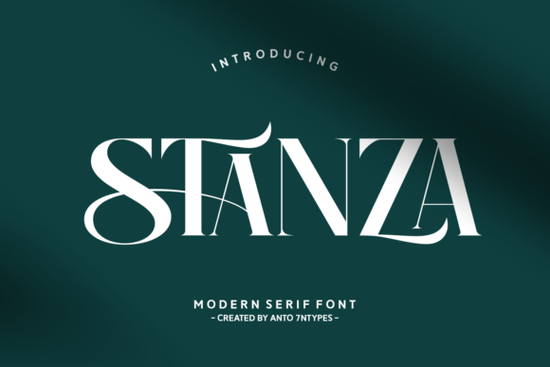
If you're looking for a serif font that balances romantic charm with clean modern usability especially for wedding invites, greeting cards, or boutique branding Stanza Font fits naturally into your workflow. It’s not overly ornate, but it carries just enough personality to stand out without sacrificing readability. Designed with both digital and print use in mind, Stanza works well across small text (like fine print on packaging) and large display settings (think book covers or wall art). Its subtle luxury cues come through in the gentle contrast of thick and thin strokes, the graceful curves of its swashes, and the thoughtful spacing between characters.
What makes Stanza different from other elegant serif fonts?
Many serif fonts lean heavily into either vintage formality or minimalist neutrality. Stanza sits comfortably in the middle: it’s classy but approachable, romantic but not fussy. Unlike some decorative scripts or high-contrast serifs that struggle at smaller sizes, Stanza maintains clarity even at 12–14pt making it practical for things like thank-you cards or product tags. The included Regular and Italic styles give you flexibility without needing to switch families, and the ligatures and alternate characters let you add quiet moments of visual interest like a soft flourish on an “&” or a more delicate “a” in a headline.
Where does Stanza work best?
It shines where tone and texture matter most:
- Wedding stationery from save-the-dates to menu cards, its lyrical rhythm supports a warm, personal feel
- Small business branding especially for boutiques, bakeries, florists, or skincare lines aiming for refined yet friendly recognition
- Print-on-demand designs whether it’s a quote poster for Etsy or a minimalist t-shirt layout, Stanza adds polish without overwhelming
- Book covers and poetry chapbooks its balanced weight and gentle contrast support storytelling without competing with imagery
- Photography overlays light enough to sit beside portraits or flat-lay shots without obscuring detail
You’ll also appreciate its multilingual support. If you design for international audiences or even just want consistent accents across English, French, Spanish, or Portuguese text Stanza handles diacritics cleanly. That’s something not all elegant serif fonts do well out of the box.
How does it compare to similar fonts on Creative Fabrica?
Stanza shares shelf space with other thoughtful serif options but each serves a slightly different need. For example, Aveloire leans more editorial and structured, making it ideal for magazine layouts or formal reports. The Aesthetic Elegant Bundle gives you variety across moods (some more vintage, others more contemporary), while Stanza offers focused consistency. If you prefer bolder contrast and sharper geometry, Zacorsea might suit your brand better. And for a softer, rounded alternative with similar warmth, Biges is worth comparing though it reads more casual than Stanza’s poised elegance.
None of these are “better” they’re tools for different jobs. Stanza stands out when you want typographic grace that still feels grounded and usable day to day.
- Pair it thoughtfully: Stanza pairs well with neutral sans-serifs (like Montserrat or Inter) for contrast, or with soft handwritten fonts for layered invitations
- Look beyond the obvious: it works surprisingly well for feminine tech brands or wellness startups not just traditional “romantic” niches
If you'd like to see how Stanza performs alongside other high-quality serif fonts, you can explore the full collection on Creative Fabrica like this Stanza Font listing, which includes real user previews and licensing details.
Next step: Try pairing Stanza with one of your current projects start with a simple greeting card layout or social media quote graphic. See how its italic style changes the mood, or how a single ligature adds quiet distinction. You don’t need to overhaul your whole toolkit to get value from it. Sometimes the most useful fonts are the ones that quietly lift the baseline of your everyday work.